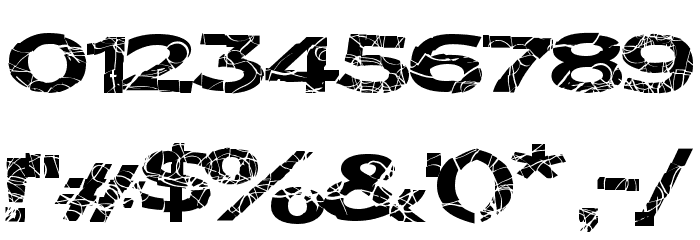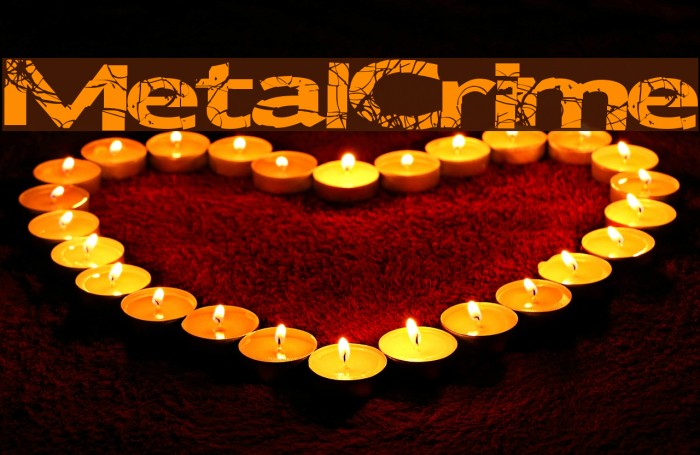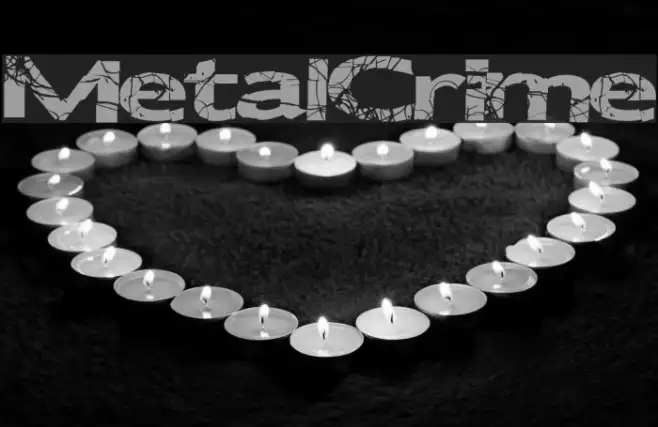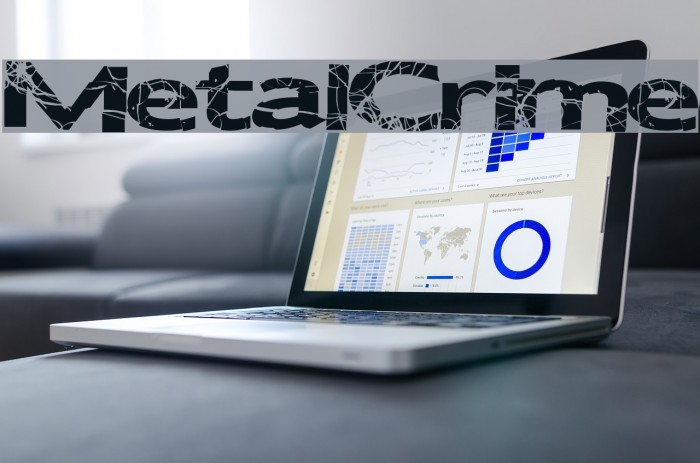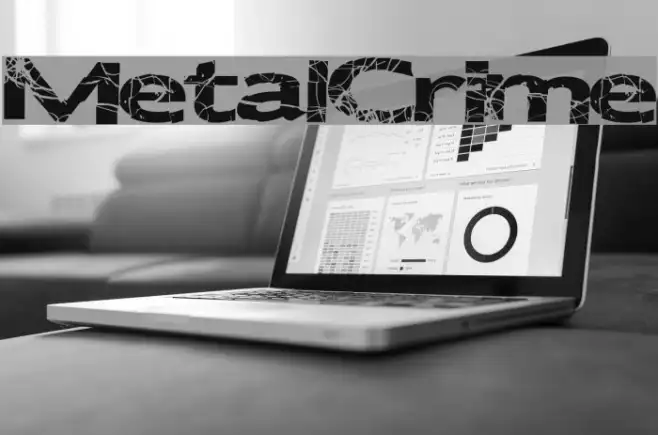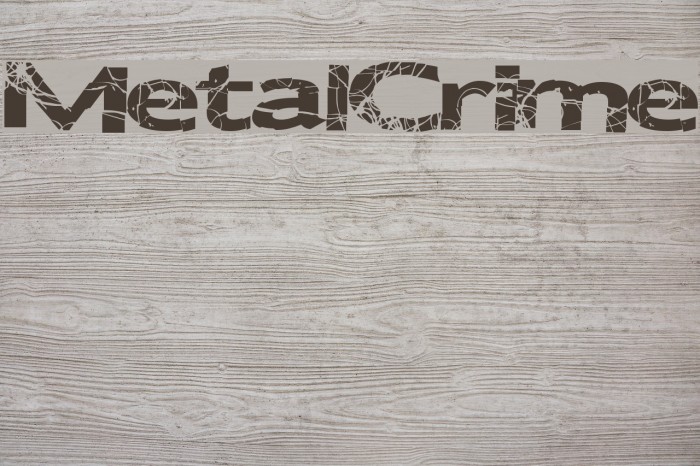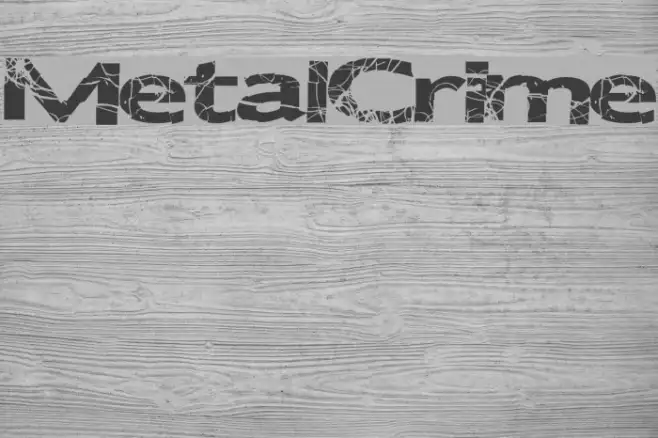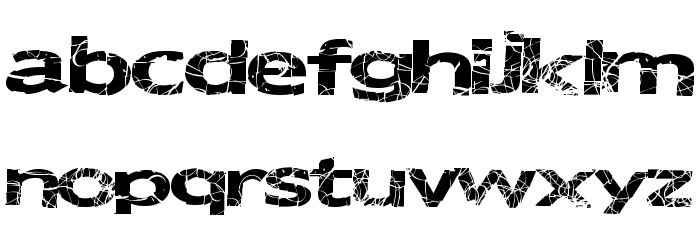
MetalCrime Font
This font features a bold and edgy design with a distressed, cracked texture that gives it a rugged and rebellious appearance. The characters are uppercase and lowercase, each with a unique pattern of cracks that create a sense of chaos and intensity. The numbers and special characters follow the same design, ensuring consistency across all elements. This font is ideal for projects that require a strong, impactful visual statement, such as music album covers, posters, or branding for edgy products. Its unique style makes it stand out, capturing attention with its boldness and intricate detailing.
A bold, distressed font with a cracked texture for a rebellious look.
• Proposed Projects: Ideal for music album covers, edgy posters, and bold branding.
• Category: Decorative/Display
• Bold: Yes
• Italic: No
• Weight: Bold
• Width: Normal
• Character Spacing: Normal
• Contrast: High
• Overall Style: Modern, Edgy
• Use Case: Headlines, Logos